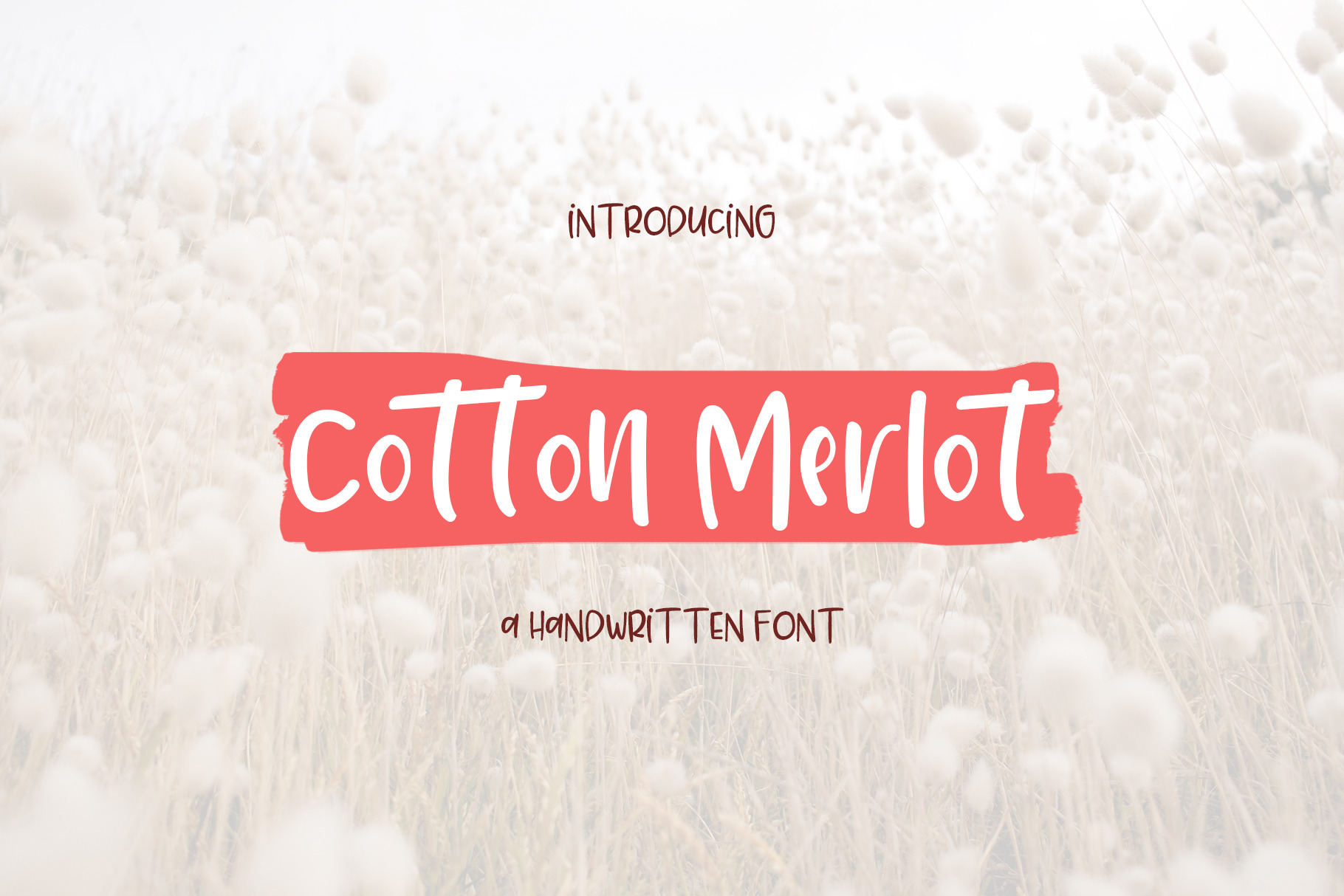
Cotton Merlot - a handwritten font
Cotton Merlot is a beautiful handwritten font with super cute quirky letters. It is perfect for crafts, quotes, headings, blogs, SVG designs, shirts, logos, invitations and more! You can use the uppercase or lowercase characters on their own, or combine both uppercase and lowercase to change things up. This font includes support for western European languages.